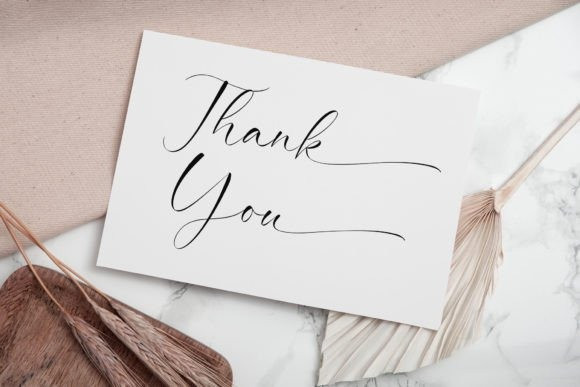
Melancholia Font
Melancholia Script Font is a delicate and elegant handwritten font. Its distinct and well-balanced letters make this font a masterpiece. Fall in love with its incredibly versatile style and use it to create spectacular designs! Melancholia is PUA encoded which means you can access all the glyphs and ligatures with ease!